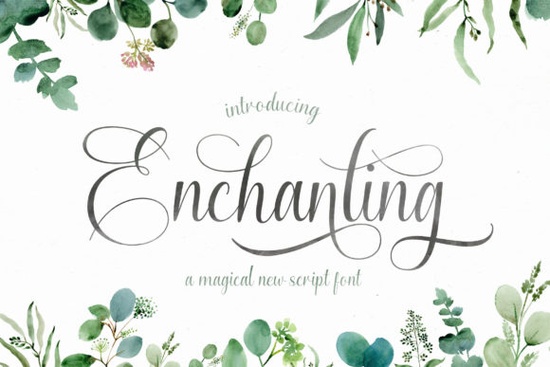
If you've been looking for a handwritten font that feels both elegant and practical, Enchanting Script Font is worth a closer look. It's the kind of typeface that works for branding projects, social media quotes, and even print-on-demand products without feeling overly decorative or difficult to read. Every letter has its own character, which helps your designs feel less generic and more personal.
What makes Enchanting Script Font different from other script fonts?
Not all script fonts are created equal. Some are too rigid, while others are so ornate they become hard to read at smaller sizes. Enchanting Script strikes a nice balance. It's a handwritten font with a timeless feel, but it doesn't sacrifice legibility for style. The letters flow naturally, and the PUA encoding means you can easily access alternate glyphs and swashes. That's especially useful when you want to add a decorative touch to a logo or a wedding invitation without having to manually edit vectors.
For designers and small business owners who work with branding, this font gives you enough flexibility to create something unique. You can mix and match letterforms to avoid repetition, which is a common problem with simpler script fonts. If you've used other handwritten fonts before, you'll notice that Enchanting Script has a slightly more refined finish it's casual but polished.
Who is this font actually useful for?
Honestly, this font fits a wide range of creative projects. Here are a few examples where it tends to perform well:
- Print-on-demand sellers – t-shirt designs, mugs, and wall art often benefit from a script that feels handcrafted. Enchanting Script works particularly well for short phrases and quotes.
- Small business owners – if you're branding a boutique, a bakery, or a beauty brand, a font like this can communicate warmth and approachability.
- Wedding and event designers – save-the-dates, place cards, and signage all look more personal with a handwritten touch.
- Crafters and hobbyists – if you're making digital scrapbooks, planners, or DIY projects, having a font with built-in swashes saves a lot of time.
It's also worth noting that the Enchanting Script Font is PUA encoded, so you can access all those extra characters directly from your font menu. No need to remember complicated keyboard shortcuts or dig through character maps.
How does it compare to similar script fonts?
If you're building a font collection, you might be wondering how Enchanting Script stacks up against other options. It has a slightly softer, more romantic feel compared to something like Quincy Font, which has a bolder, more modern silhouette. On the other hand, Overthinker Font leans into a rougher, hand-drawn aesthetic, while Enchanting Script feels more deliberate and clean.
For designers who work across different styles, having both options in your toolkit makes sense. If you need a font that feels elegant but still approachable, Enchanting Script is a solid middle ground. It's not as formal as a copperplate script, but it's not as casual as a messy brush font either.
Pairing Enchanting Script with other fonts
A common question is what to pair with a script font. Because Enchanting Script has a medium weight and moderate contrast, it pairs well with simple sans-serifs or clean serifs. Avoid pairing it with another busy script that usually ends up looking cluttered. Instead, let the script be the hero and use a neutral font for supporting text. For example, Autography Font has a similar handwritten quality but a different rhythm, so you could use it for shorter headings alongside Enchanting Script for longer quotes.
Can you use this font for commercial projects?
Yes, and this is an important consideration for anyone selling products. The font is available through Creative Fabrica with a commercial license, which means you can use it on merchandise, branding materials, and digital products without worrying about copyright issues. Always double-check the specific license terms for your use case, but generally speaking, this is a safe choice for print-on-demand and small-scale commercial work.
What about multilingual support?
Enchanting Script includes basic Latin characters, which covers English and most Western European languages. If you're working with projects that require extended character sets or non-Latin scripts, you might need a supplementary font. For those cases, Wonderful Butterfly Font offers a similar aesthetic but with a slightly different glyph range, so it's worth comparing the two.
Practical tips for using Enchanting Script Font
If you decide to try this font, here's a quick checklist to get the most out of it:
- Use the swashes sparingly. They're beautiful, but too many decorative elements in one design can look busy. Pick one or two letters to add flourishes.
- Test it at different sizes. Script fonts often look best at medium to large sizes. At very small sizes, the fine details may get lost.